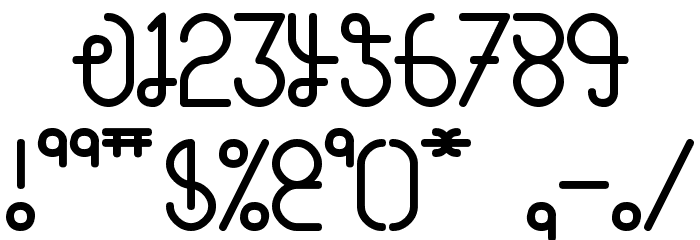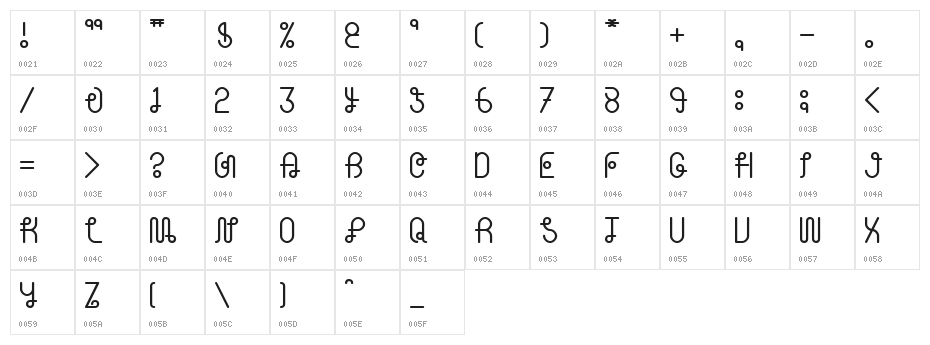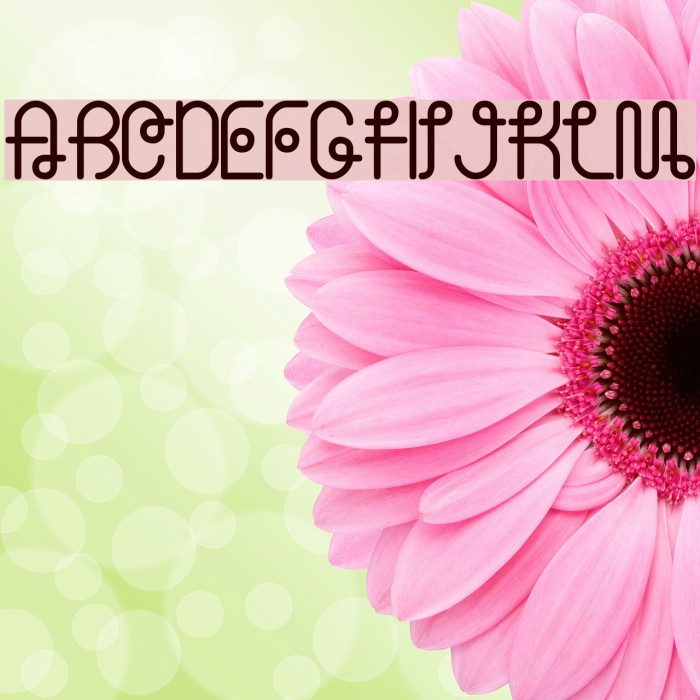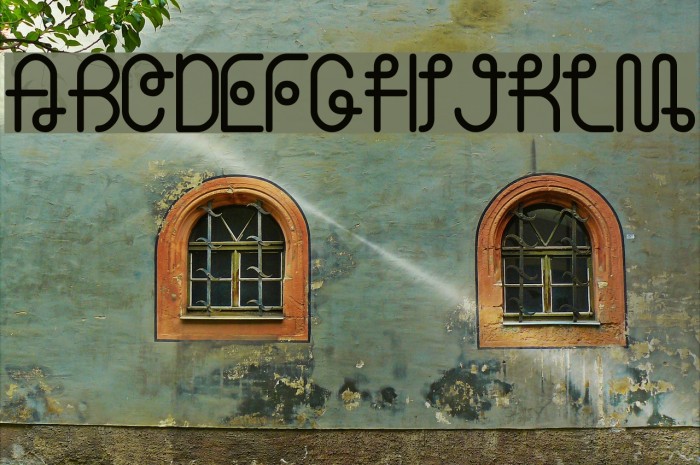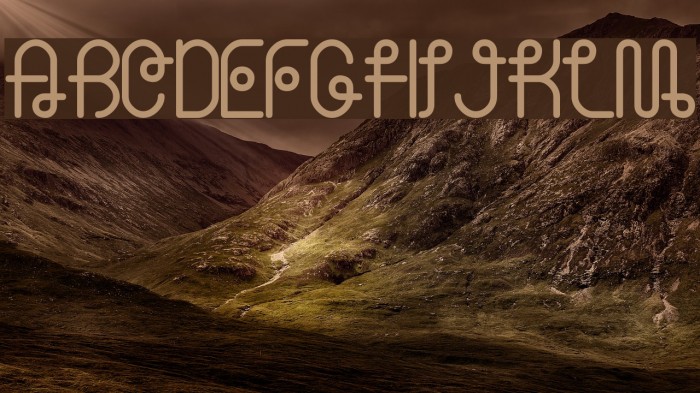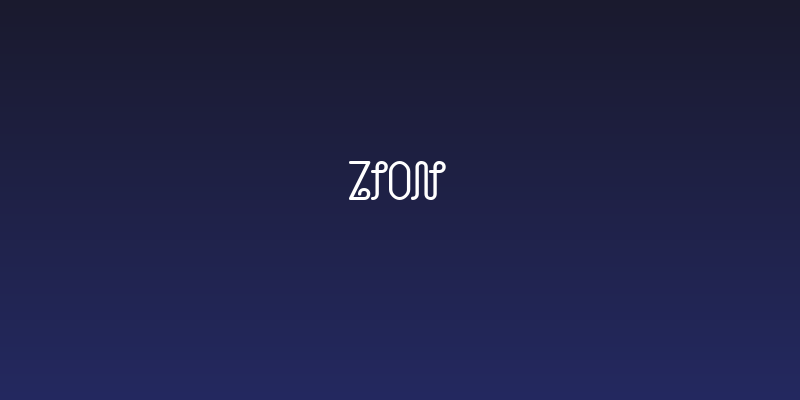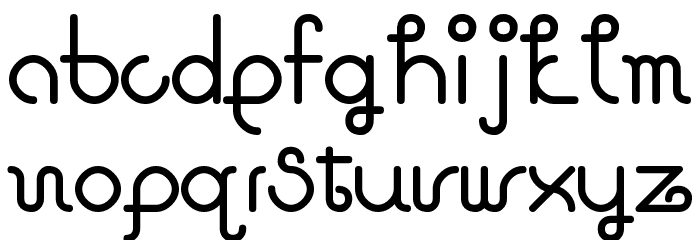
zion Font
zion Description
This font features a unique and playful design with a modern twist. The characters are composed of continuous, rounded lines that create a sense of fluidity and movement. The uppercase letters are bold and striking, while the lowercase letters maintain a consistent style with a slightly more delicate touch. Numbers and special characters follow the same design principles, ensuring a cohesive look across all elements. The overall appearance is both contemporary and approachable, making it suitable for a variety of creative applications.